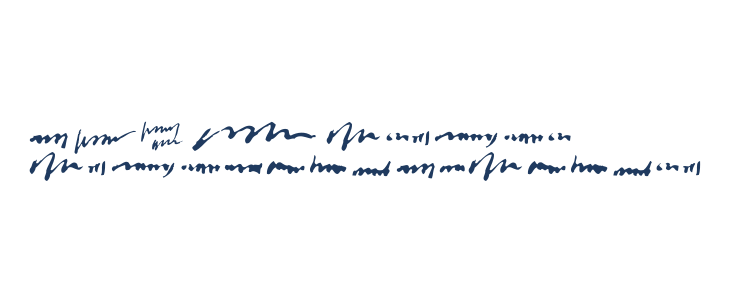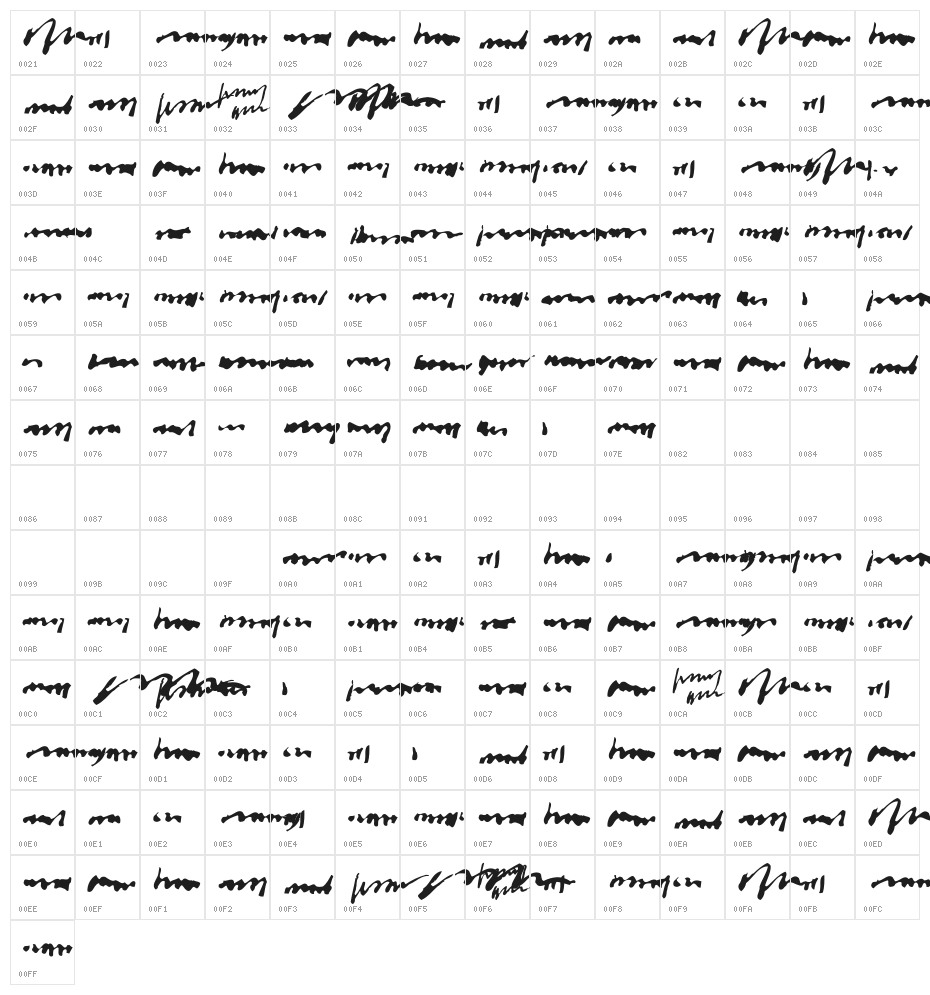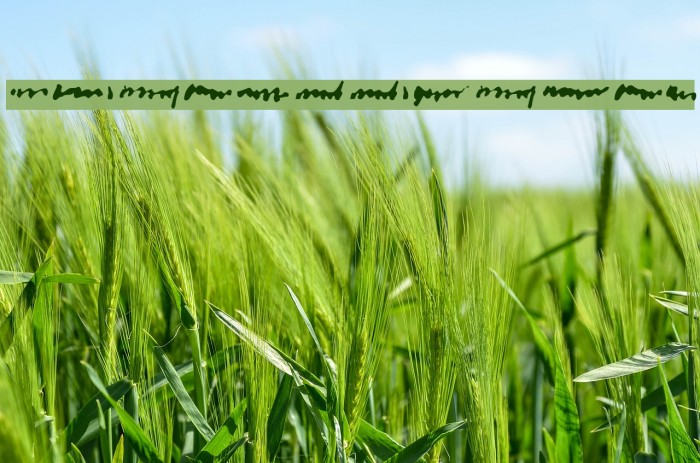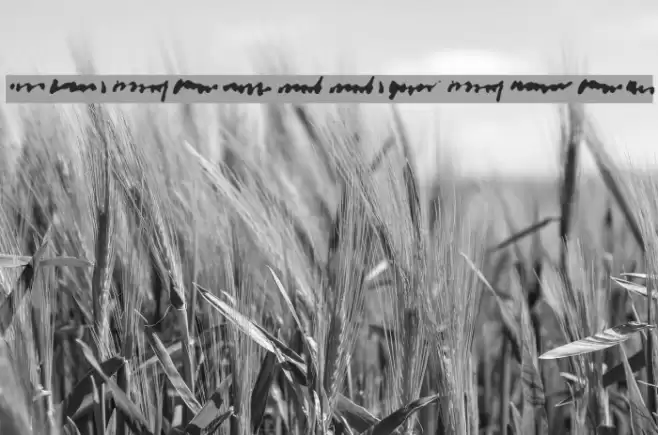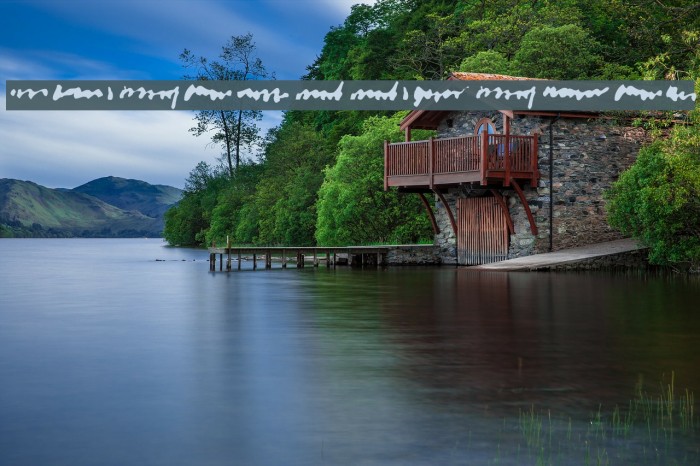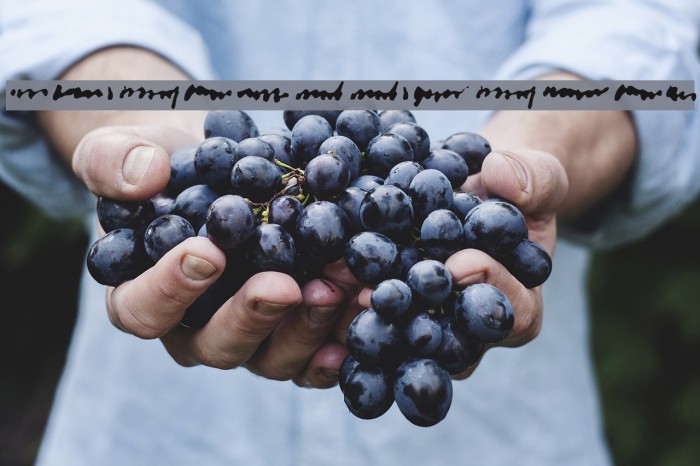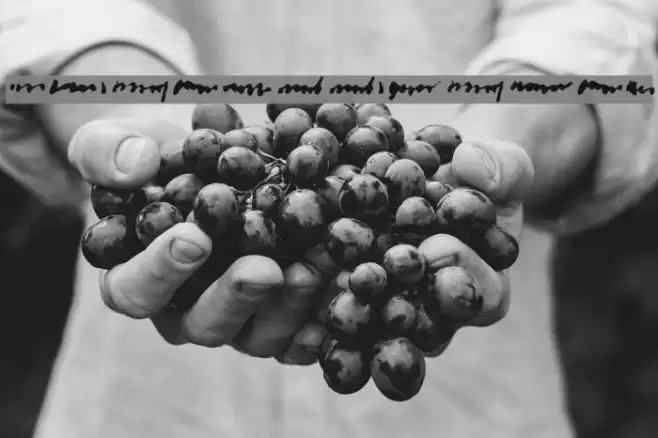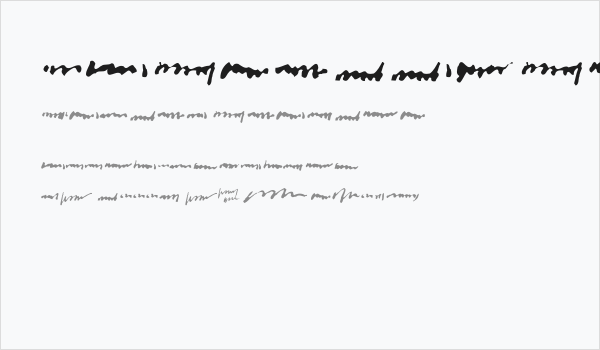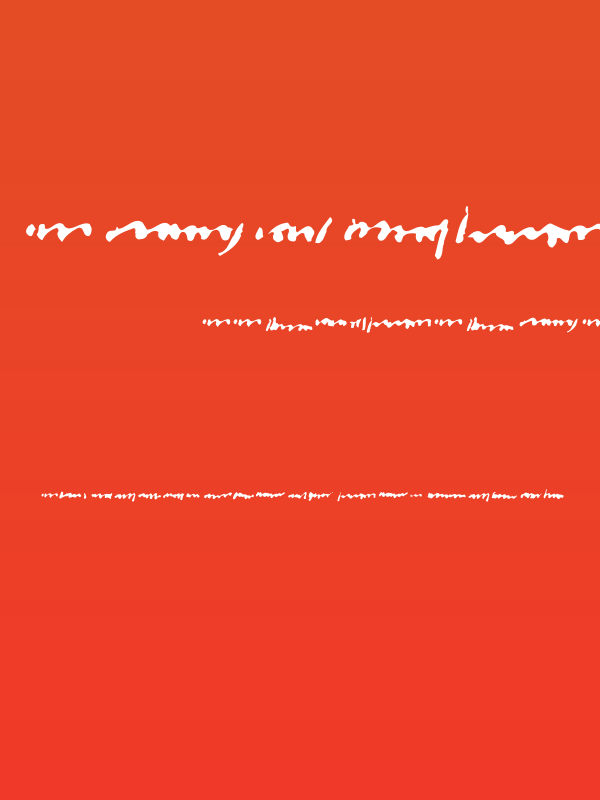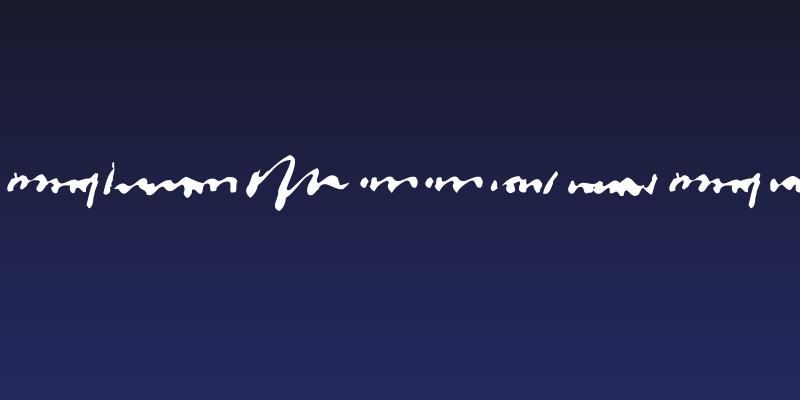
TheWrittenWord Font
TheWrittenWord Description
This font is a highly stylized, decorative script that mimics the fluidity and elegance of handwritten calligraphy. The characters are intricately designed with sweeping curves and flourishes, giving it an artistic and sophisticated appearance. The strokes vary in thickness, adding a dynamic quality to the text. This font captures the essence of traditional penmanship, making it ideal for projects that require a personal touch. Its unique style is both expressive and refined, suitable for creative and formal applications.